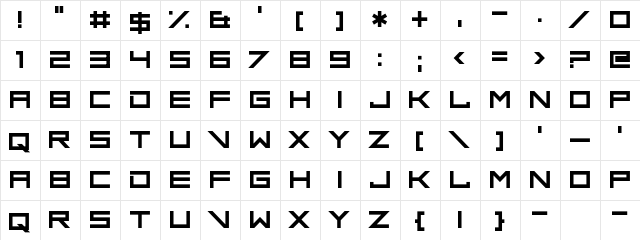
Blend Her Regular
| Designer | NAL |
Design Context for Blend Her Typeface
Blend Her is a composed and adaptable typeface that performs quietly and consistently across a wide range of design contexts.